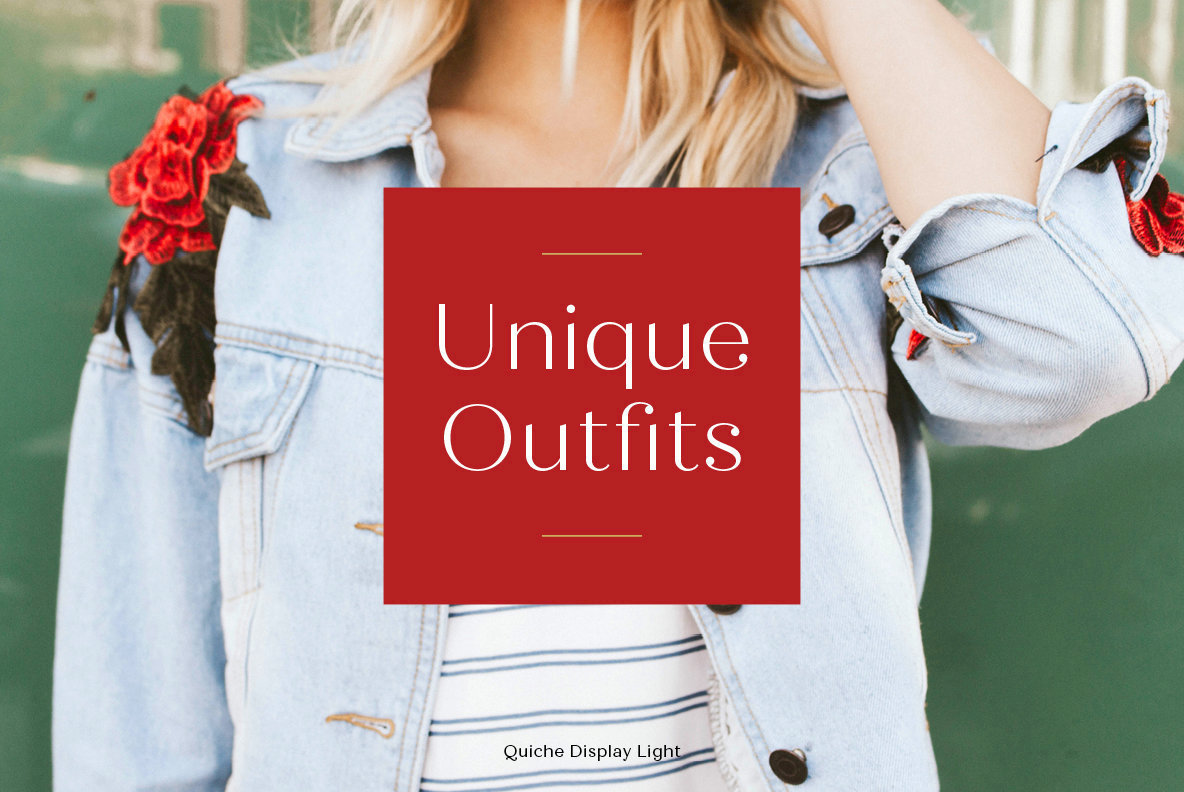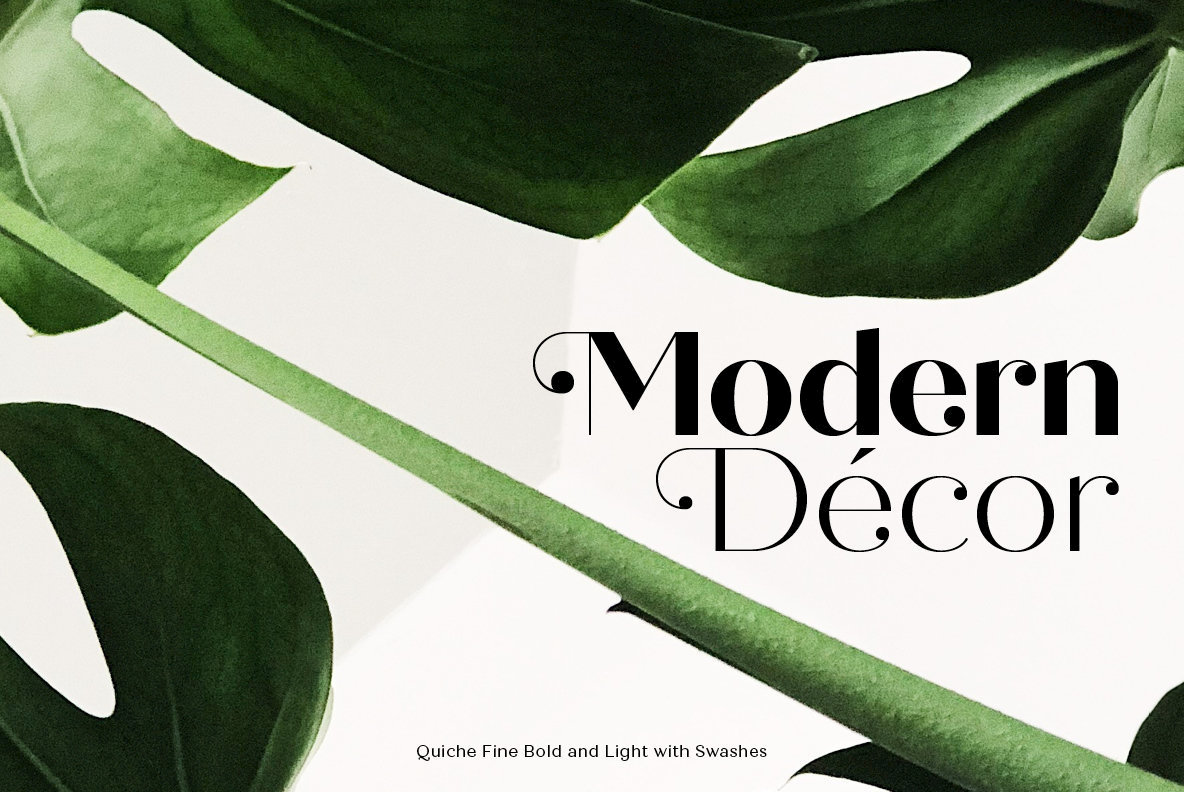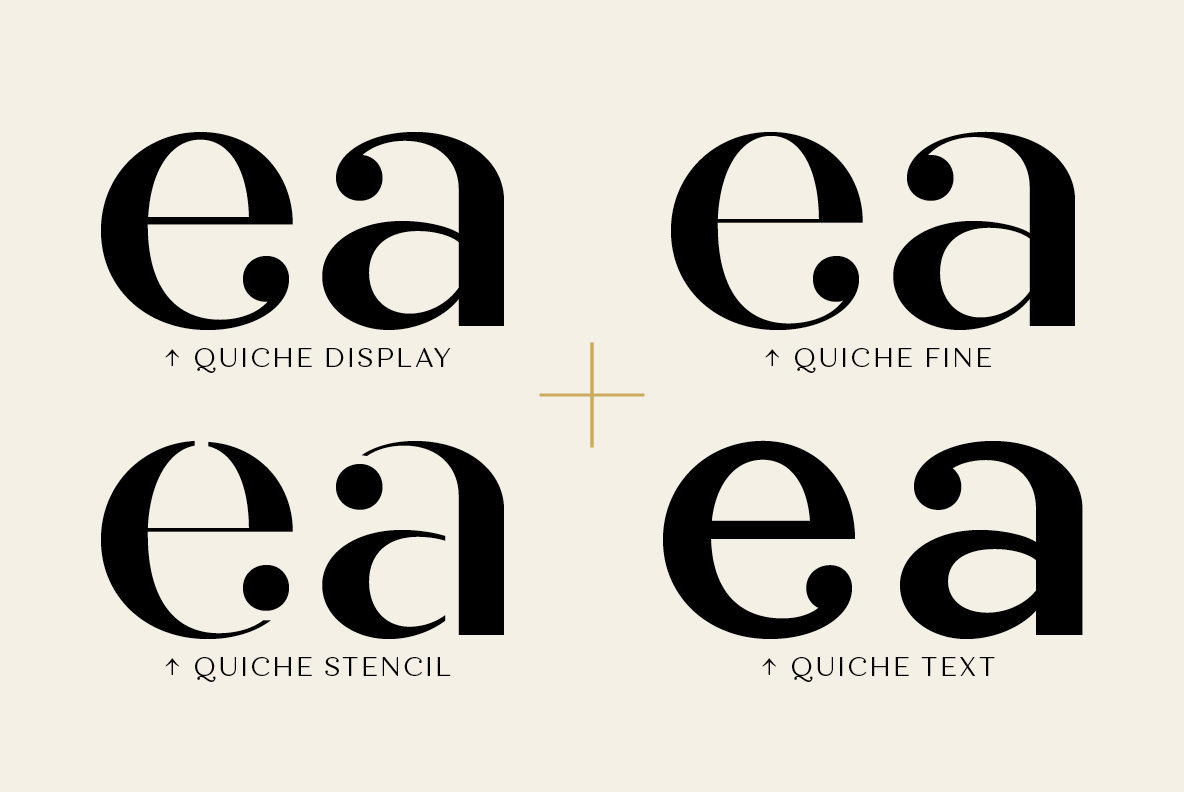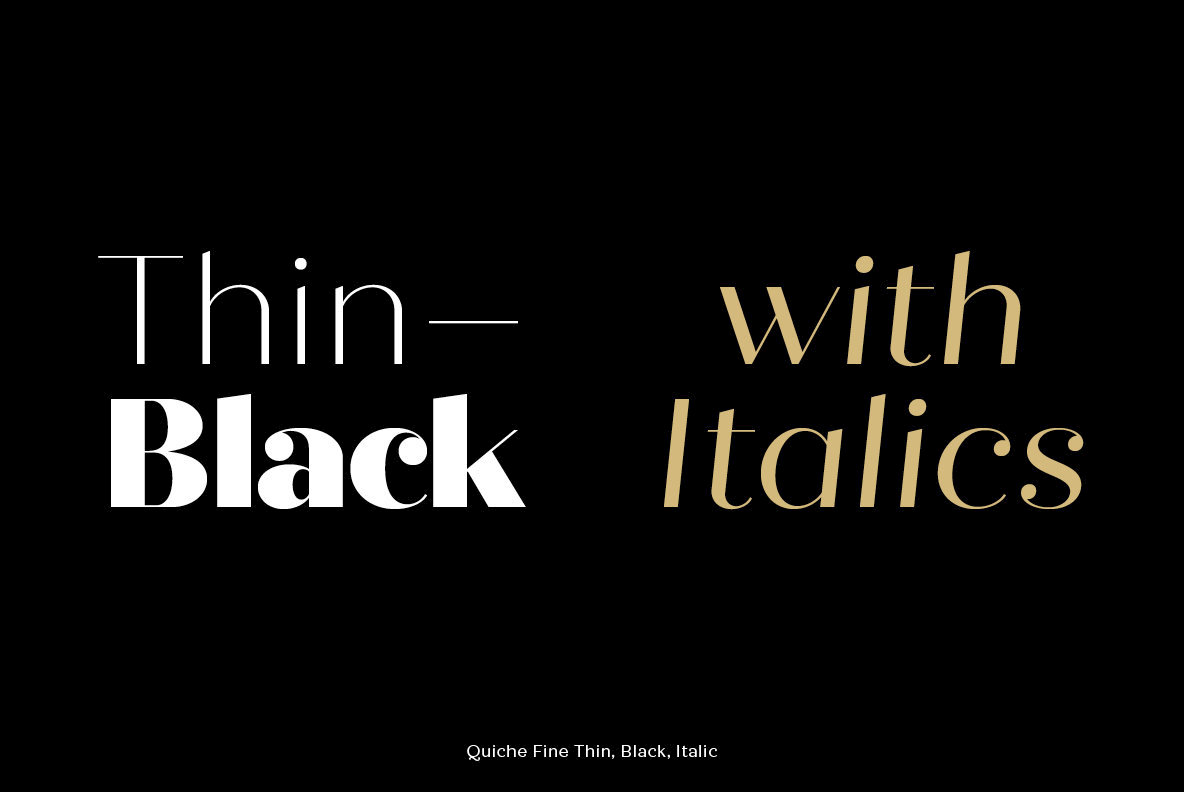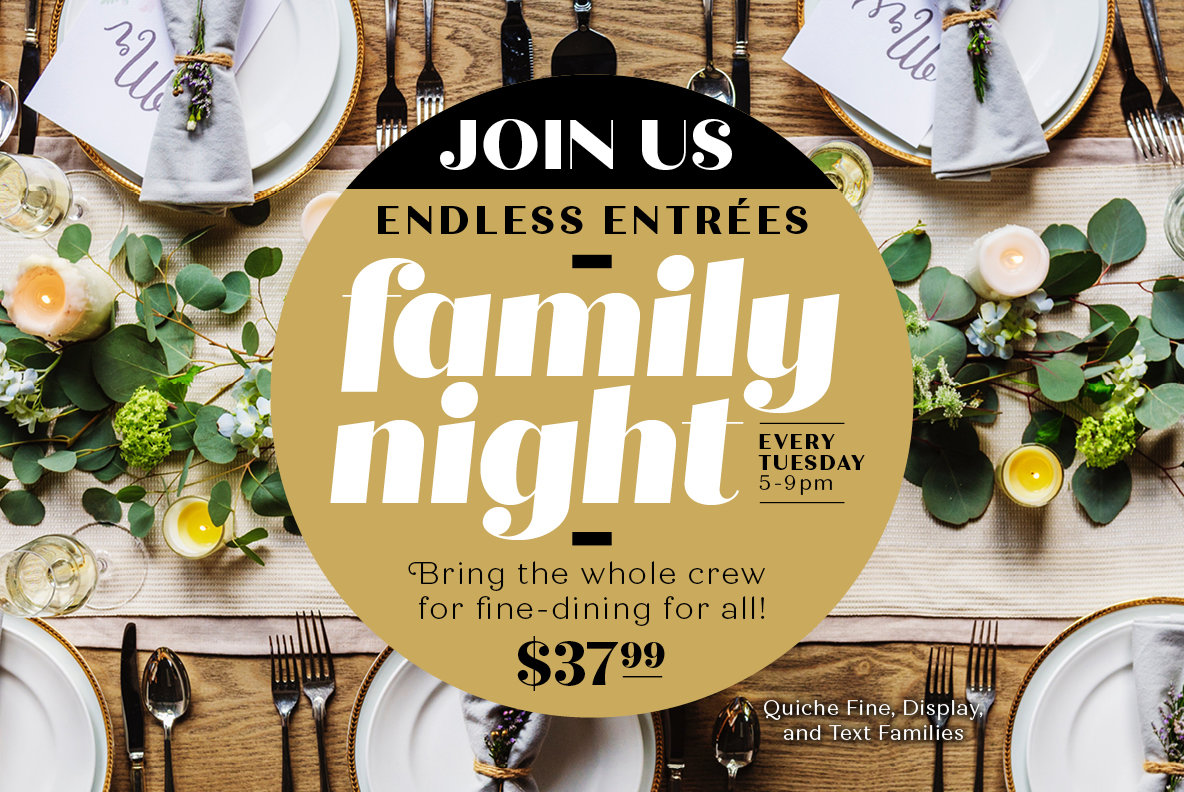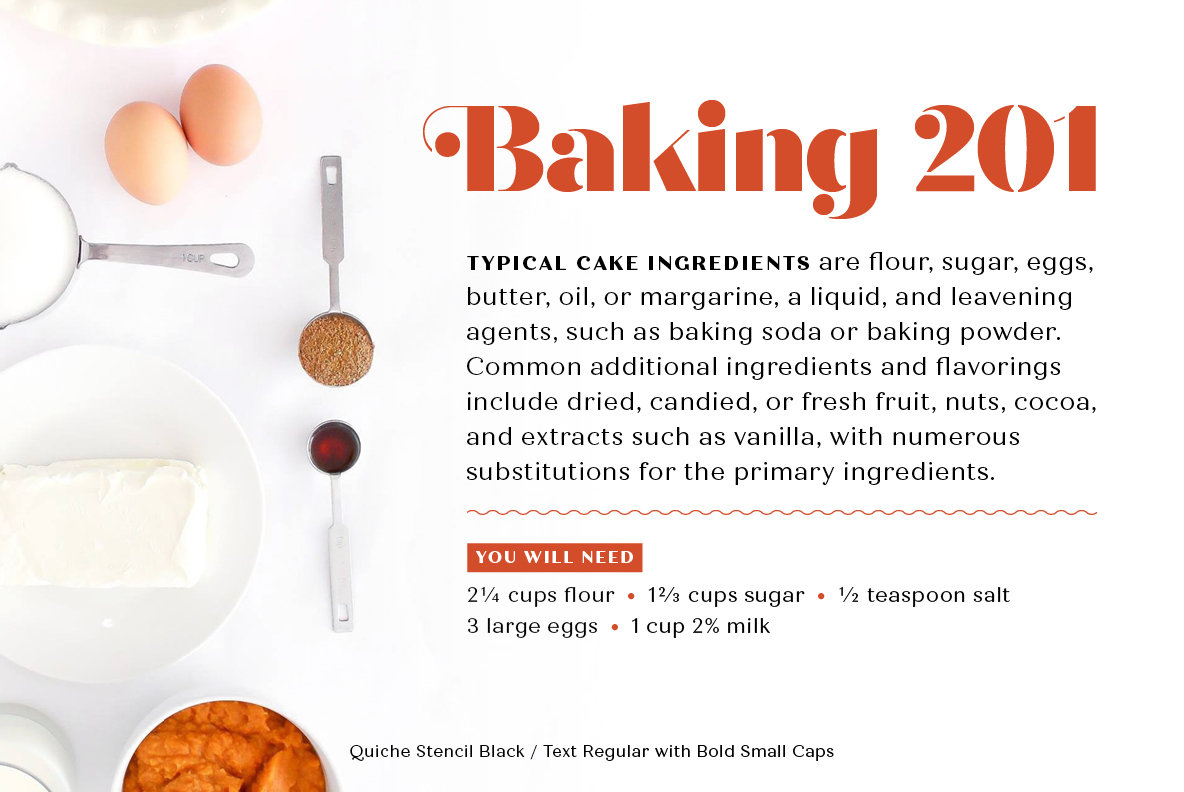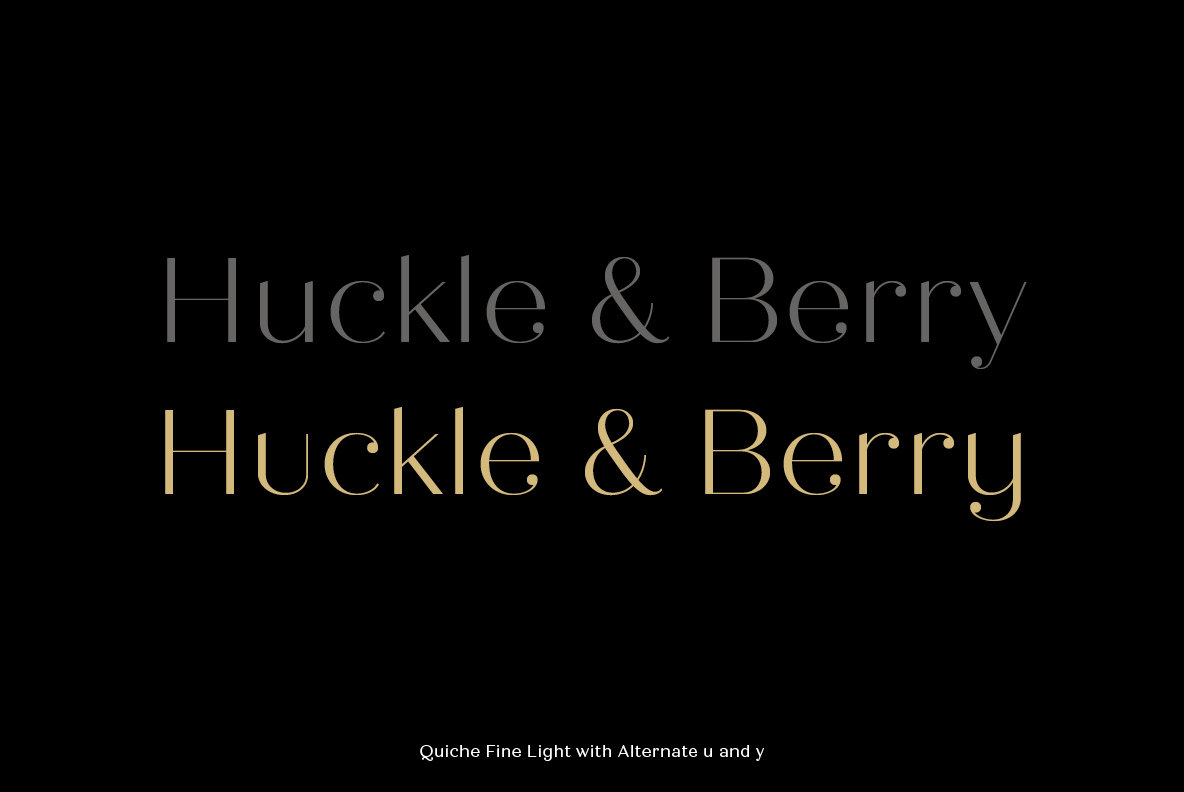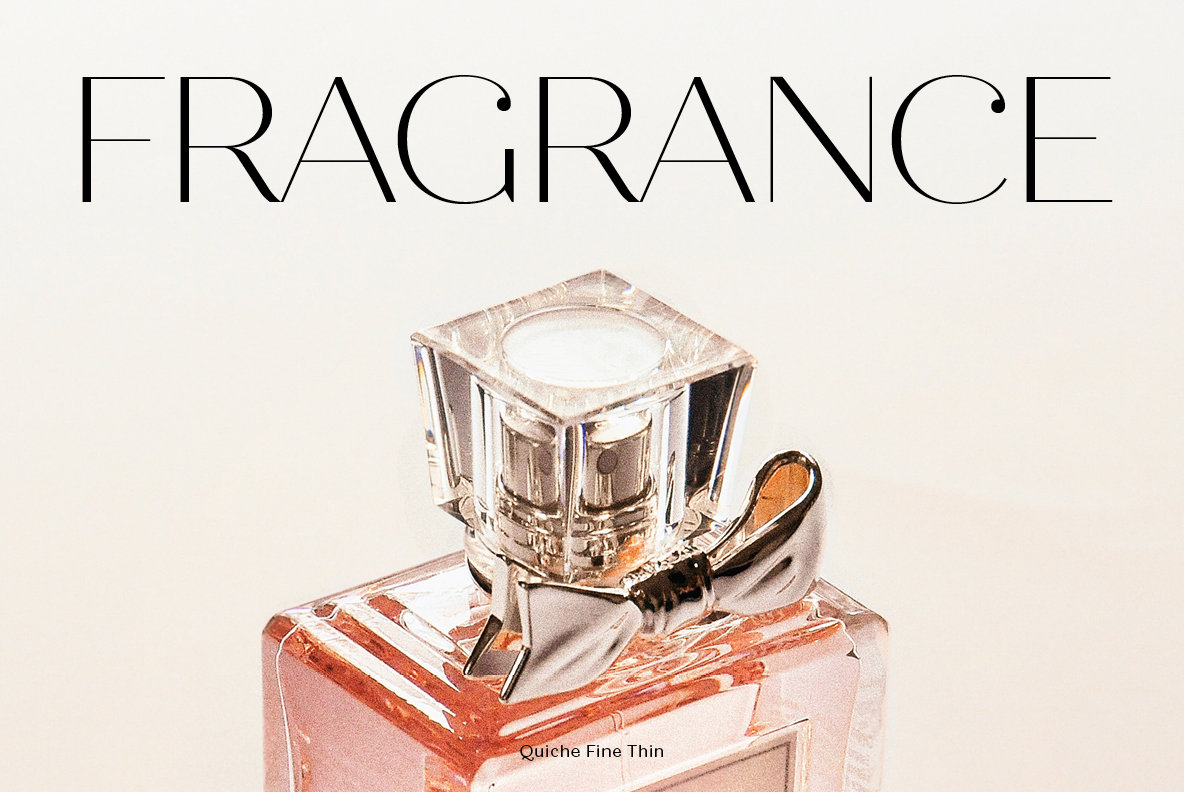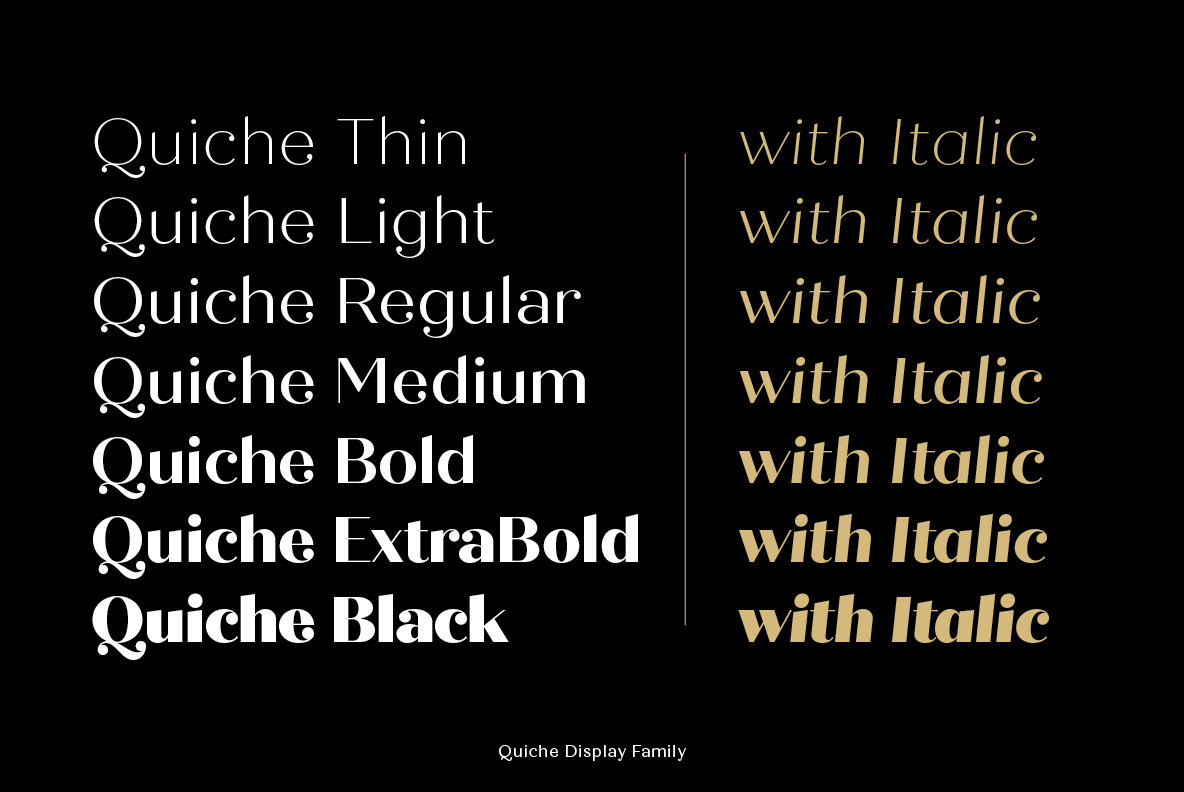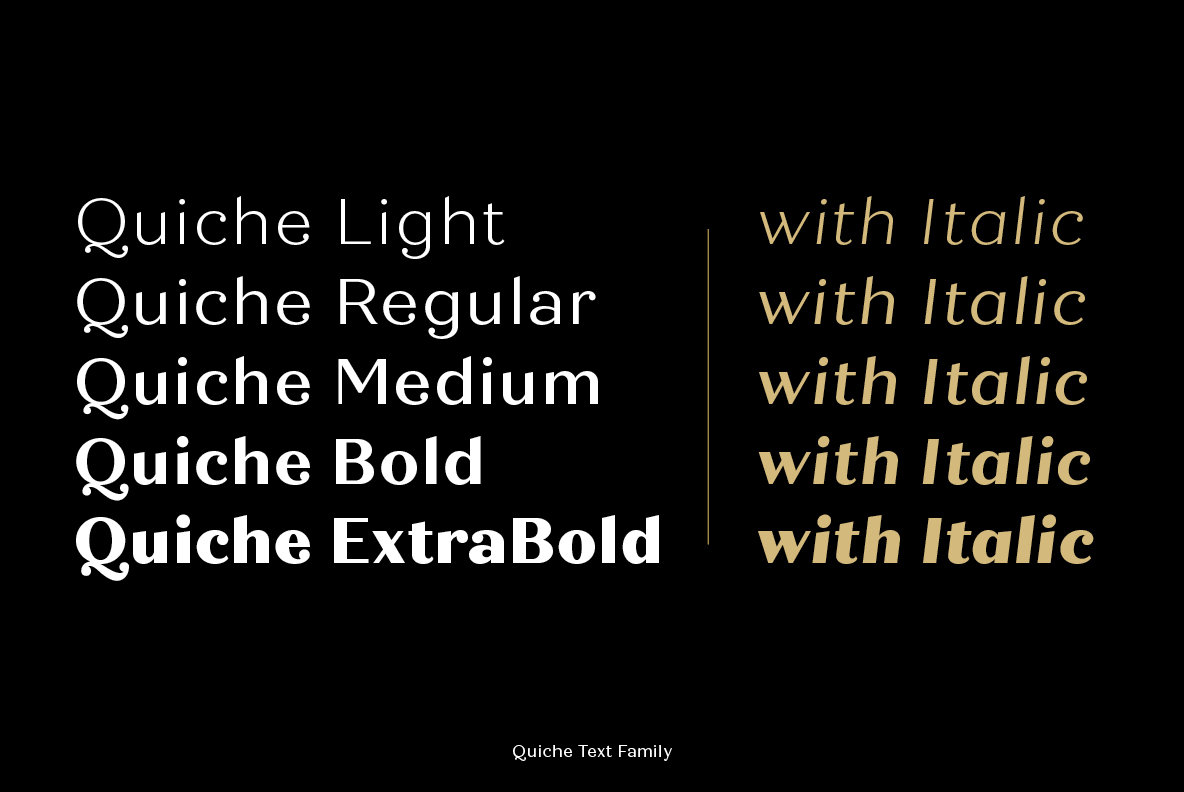
Quiche Font
Quiche is a high-contrast, sans serif typeface featuring ball terminals and angled stems. This 52 font superfamily is a complete branding suite. The 4 subfamilies—Display, Fine, Stencil, and Text—were created to work harmoniously together based on the need. With weights ranging from thin to black and matching italics, there are a variety of applications that the fonts can be used for: print, web, branding, advertising, magazines, products, packaging, labels, etc.
Quiche has many OpenType features, including: stylistic alternates, swash capitals, ligatures, small caps (Text styles only), fractions, subscripts, and superscripts. This font has extensive Latin language support for Western, Central, and South Eastern European.